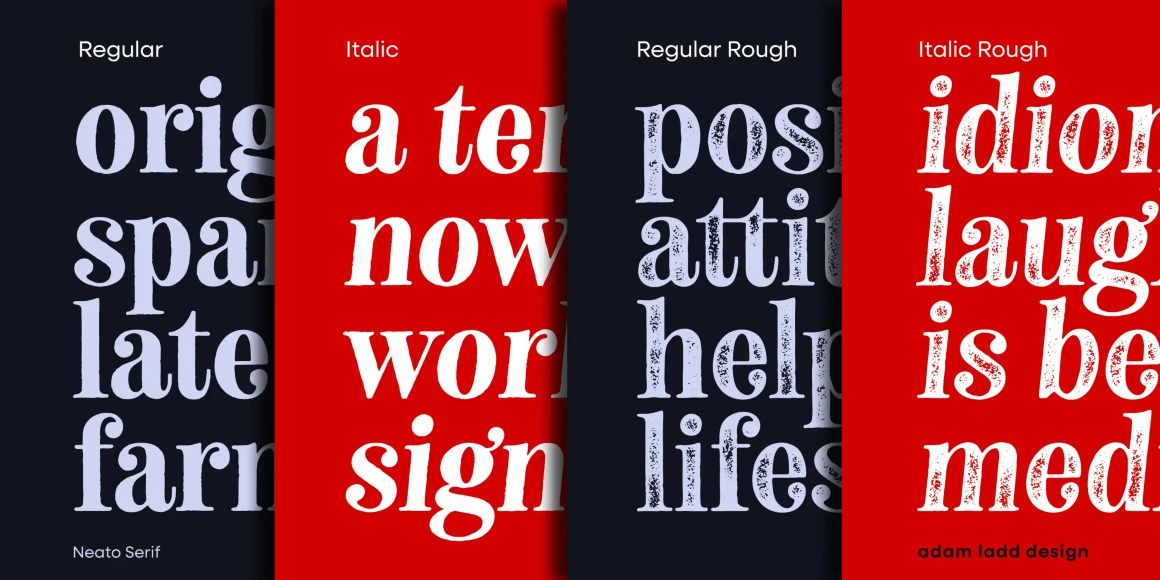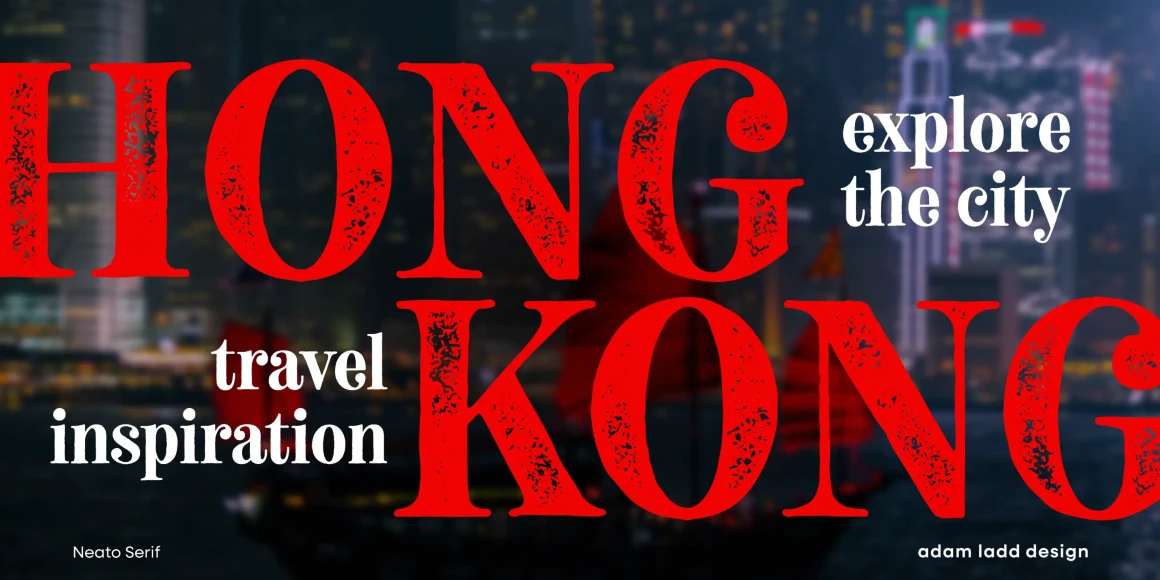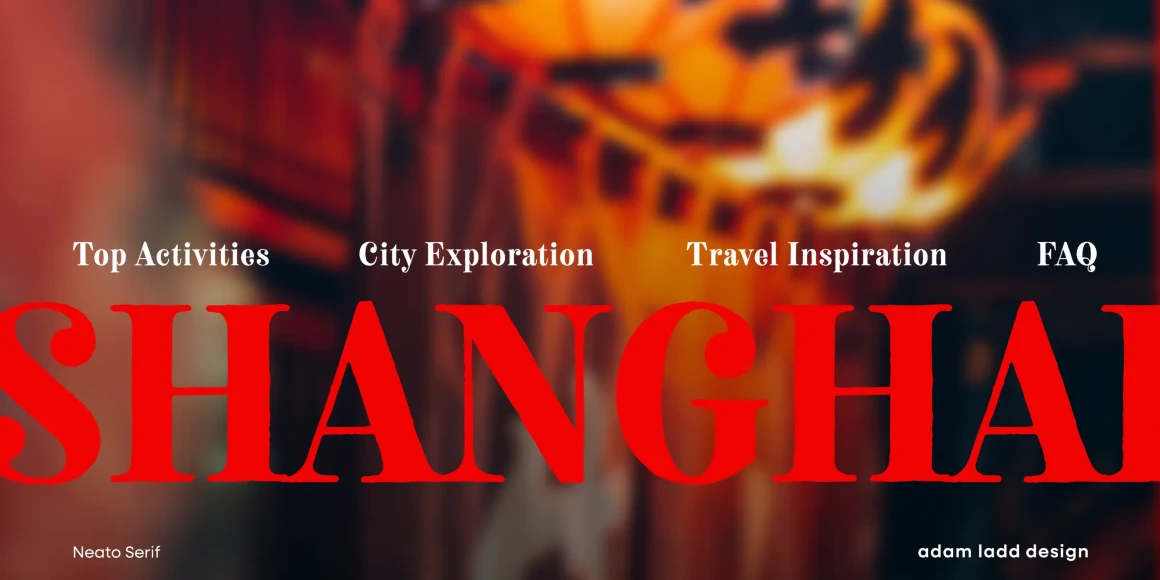
Neato Serif
Neato Serif is a quirky hand-drawn serif family. It has a unique blend of stately sophistication and playfulness with its textured high contrast and theatrical ball terminals. Its slightly condensed structure makes it a distinguished choice for magazine headlines, book titles, food packaging, multimedia branding, and more. With alternates, ligatures, and swashes to add flair to your typography, Neato Serif is the ideal choice to create something artisanal and handcrafted.